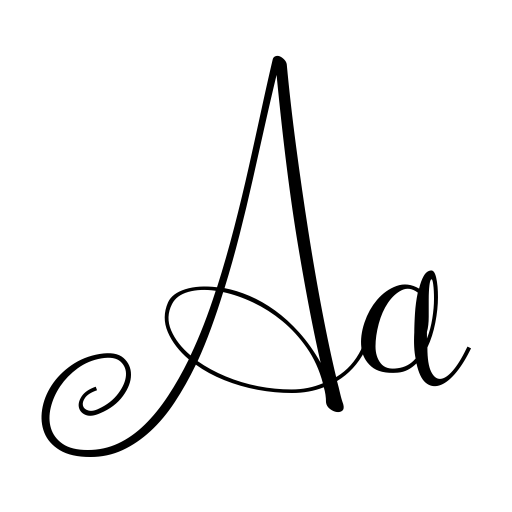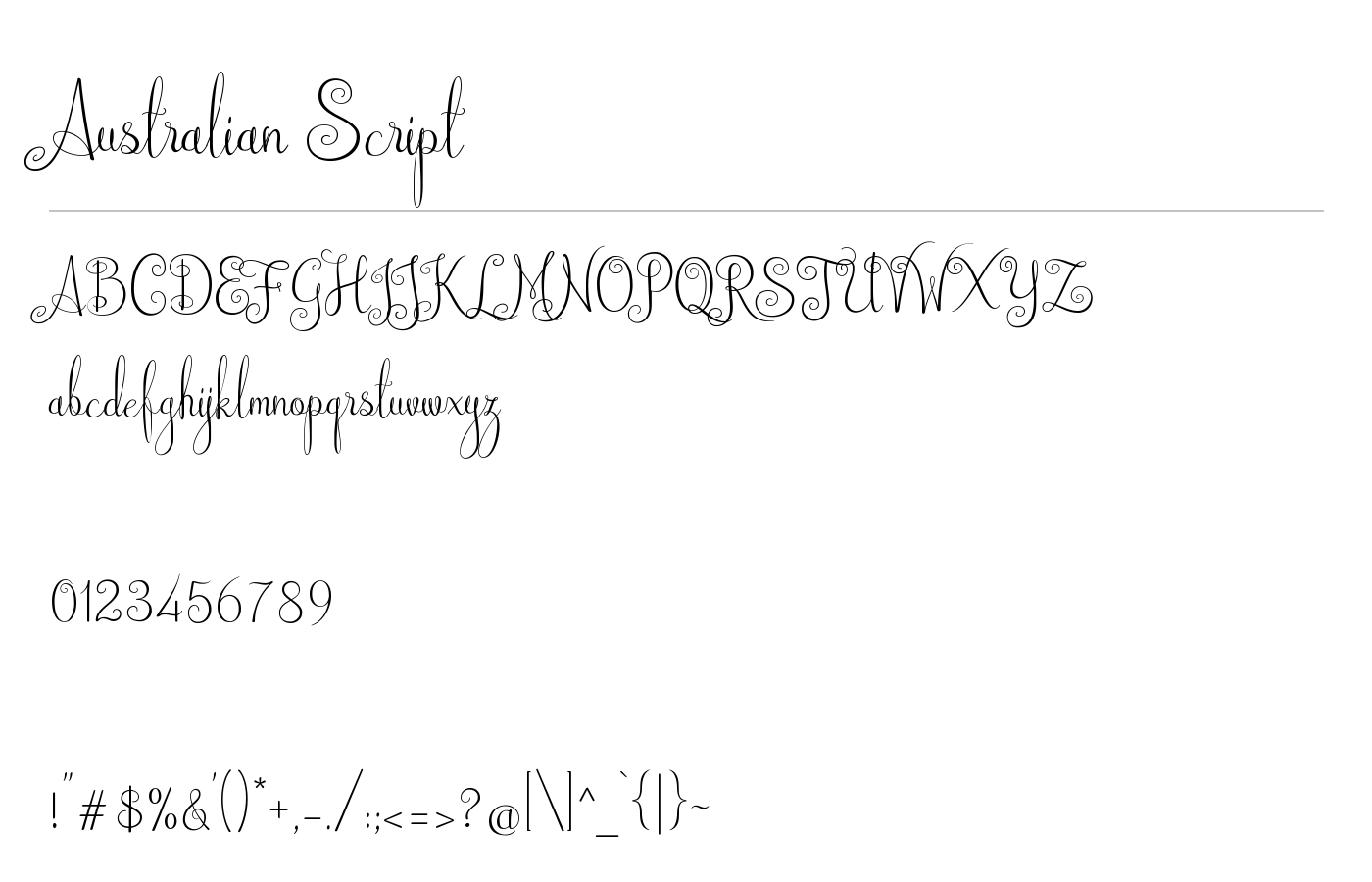
Australian Script is an elegant and delicate script font with slender, flowing strokes and intricate swirls, especially prominent in its uppercase letters. Its light weight and tall x-height give it a graceful, airy feel, making it perfect for feminine branding, wedding invitations, and decorative headings that require a touch of sophistication and charm. This font’s unique, ornamental style works best when used sparingly to add refined, artistic flair to elegant designs.
Australian Script Font
About Australian Script Font